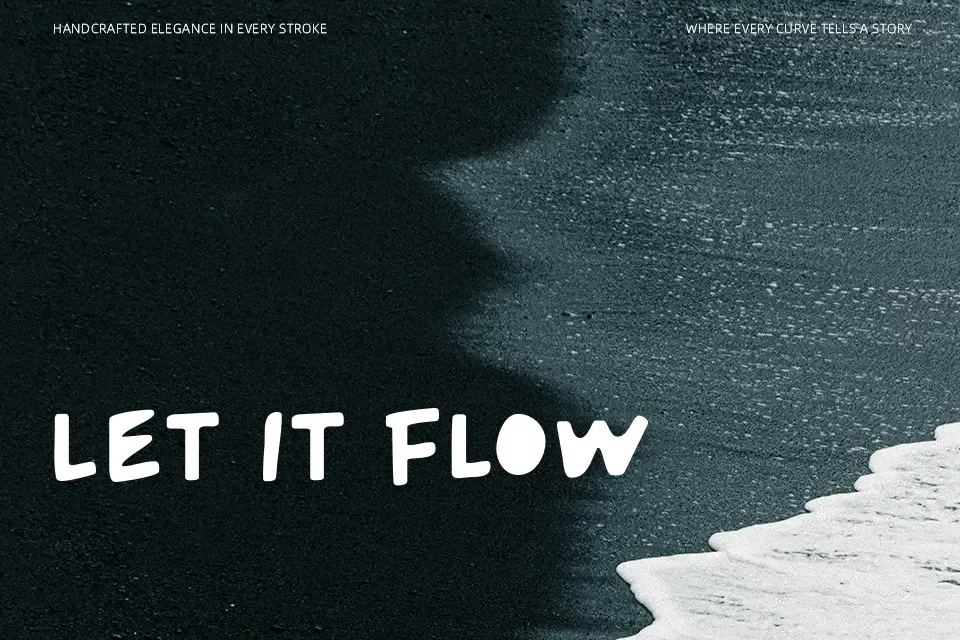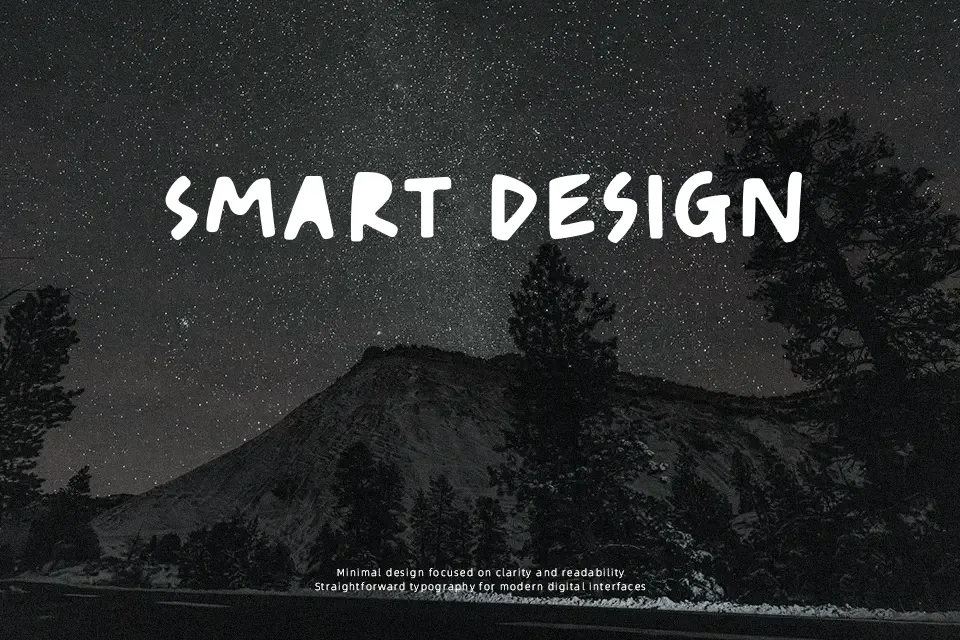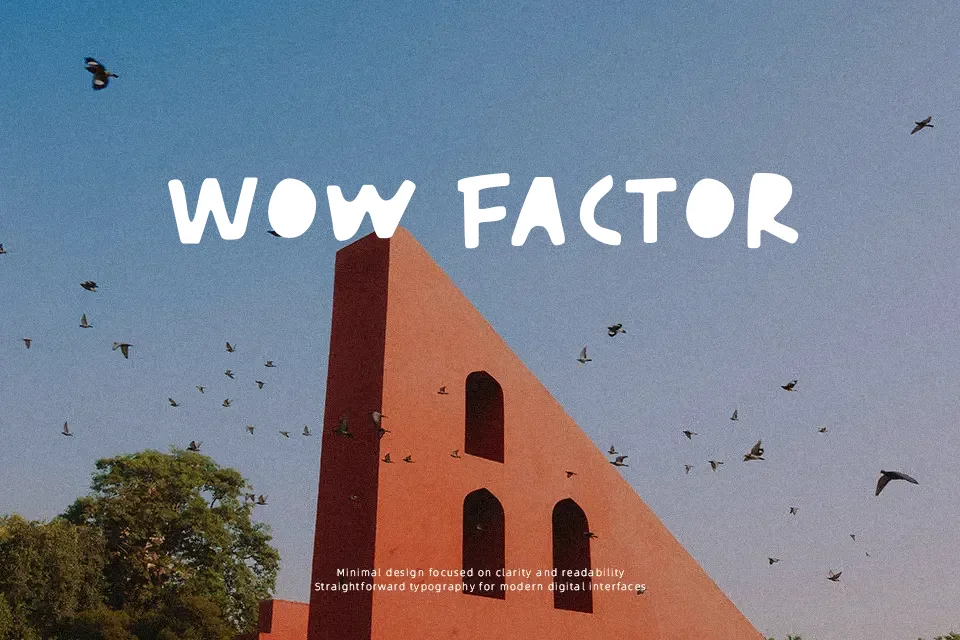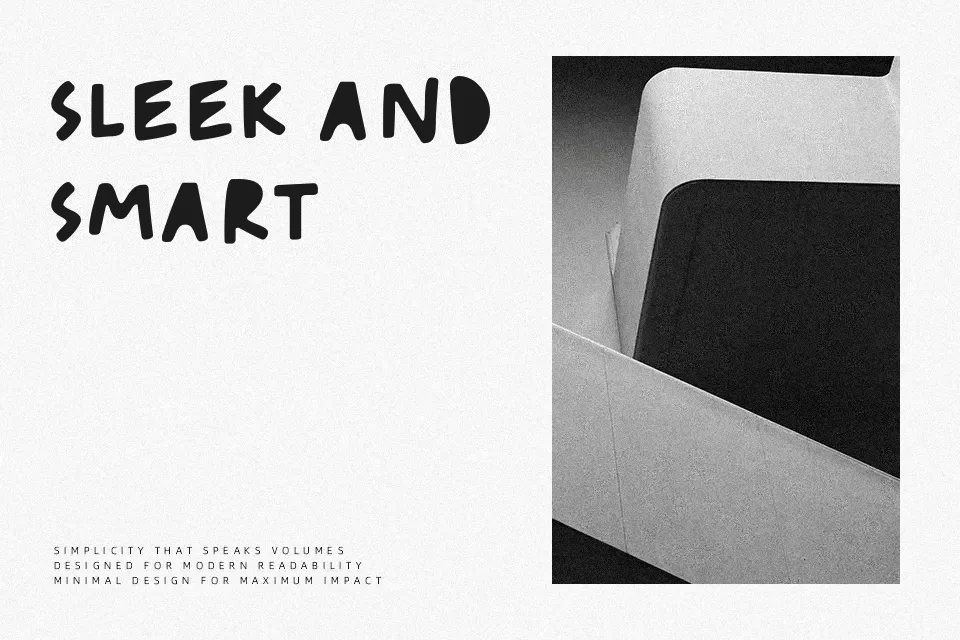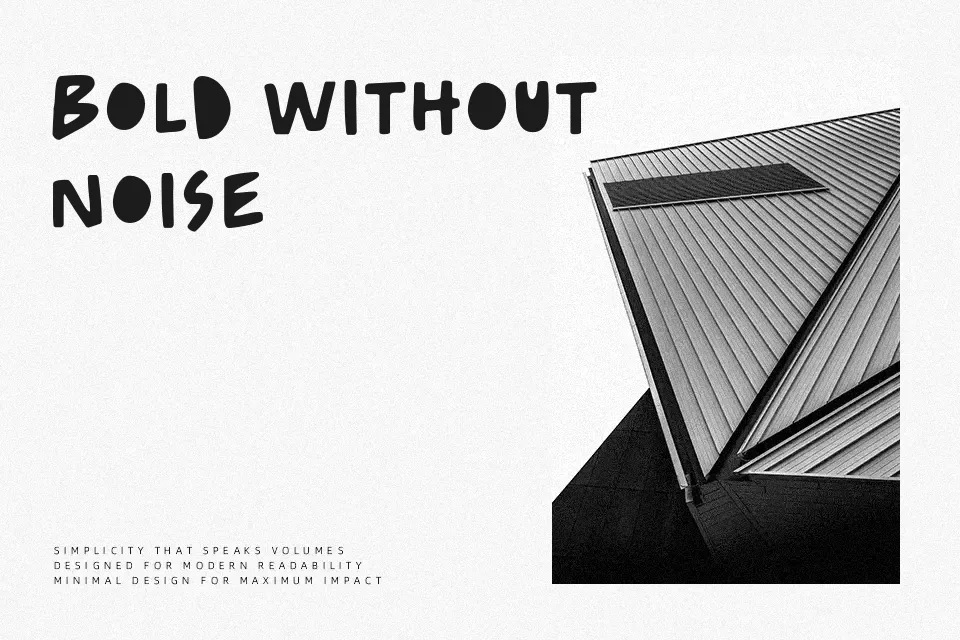
Cherish Today Font
Designed by Saridezra
Cherish Today Font features distinct scissor-cut letterforms characterized by straight stroke segments, subtle asymmetry, and relaxed proportions. The glyph construction pairs flat, angular terminals with sturdy uniform stroke widths, producing an informal handcrafted appearance across uppercase and lowercase sets. Spacing remains comfortable between characters, allowing medium-length titles to retain strong clarity on screen and print. The design excels in casual apparel prints, greeting cards, and editorial subheadings where an approachable handmade character is needed. However, the irregular cutout angles and stylized forms reduce comfort during extended reading, making the typeface less suitable for multi-page body text and dense paragraphs.
Best For: apparel graphics,greeting card titles,packaging labels,social media banners
Not Ideal For: long body text,dense paragraphs,legal documents,small interface labels
Perfect for branding, headline, and packaging, with a creative and display style.